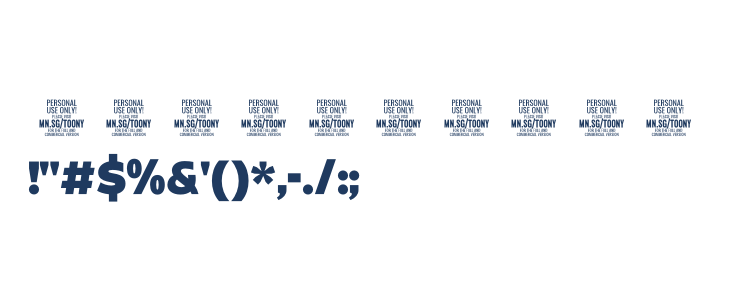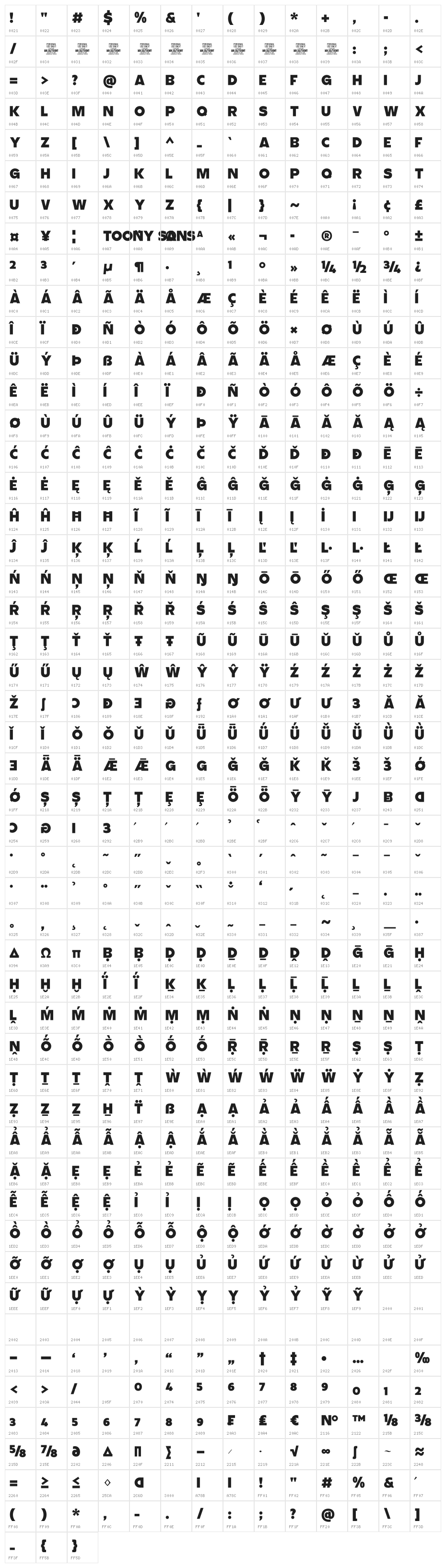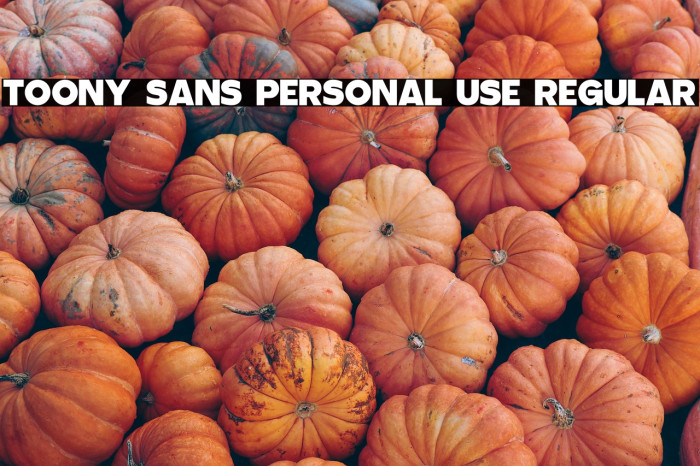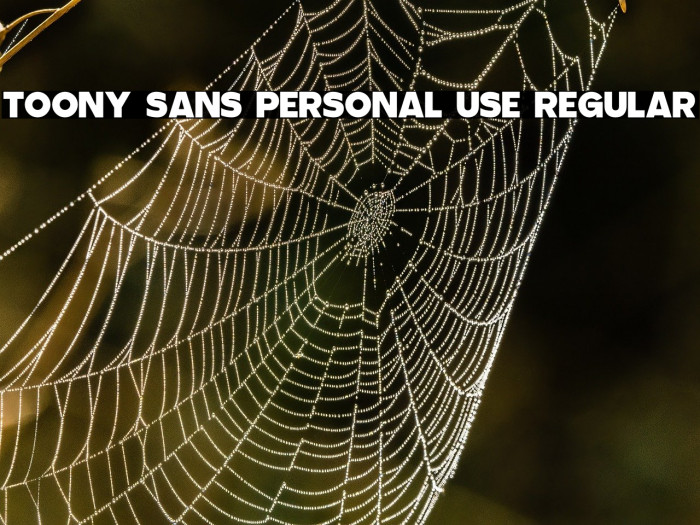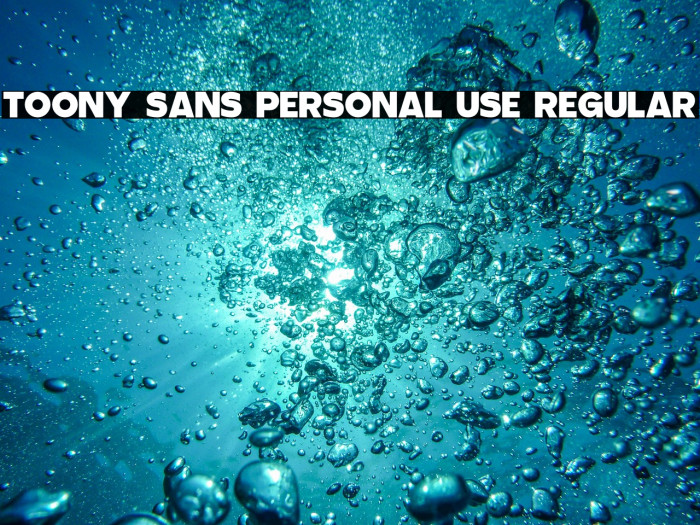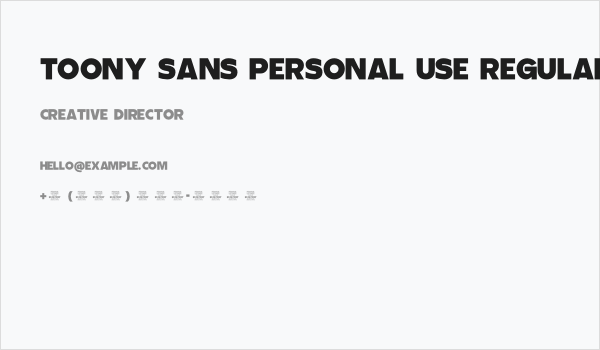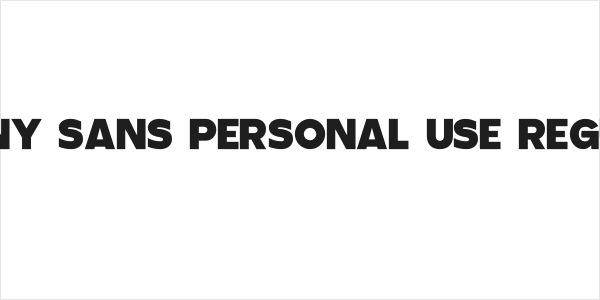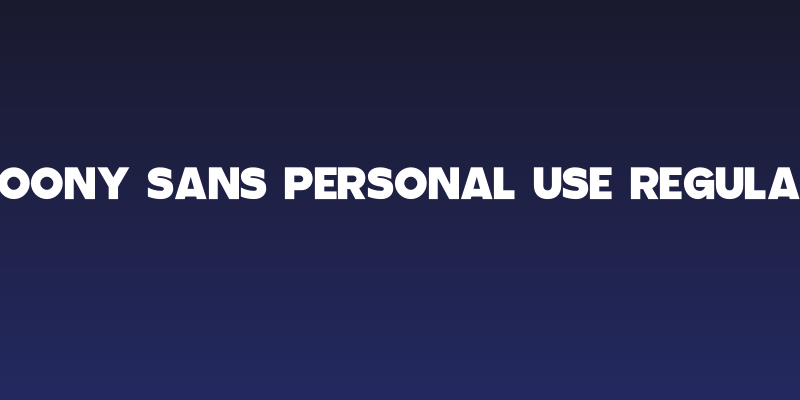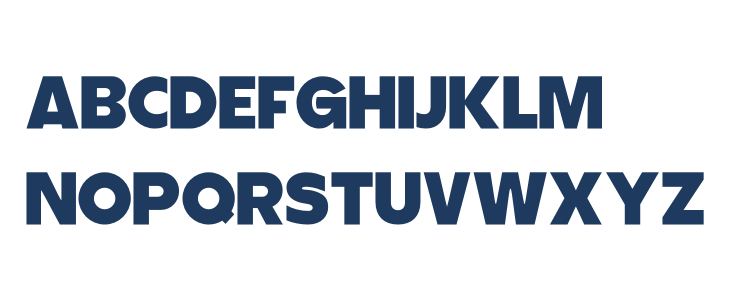
Toony Sans PERSONAL USE Regular Font
Toony Sans PERSONAL USE Regular Description
This font features bold, uppercase letters with a playful and cartoonish style. The characters are thick and blocky, giving them a strong presence on the page. The design is clean and straightforward, with smooth curves and sharp angles that create a modern and dynamic look. The font includes a full set of uppercase letters, numbers, and a variety of special characters, making it versatile for different uses. Its boldness and simplicity make it suitable for attention-grabbing headlines and titles.
| Proposed Projects | Ideal for comic books, children's books, playful branding, and eye-catching posters. |